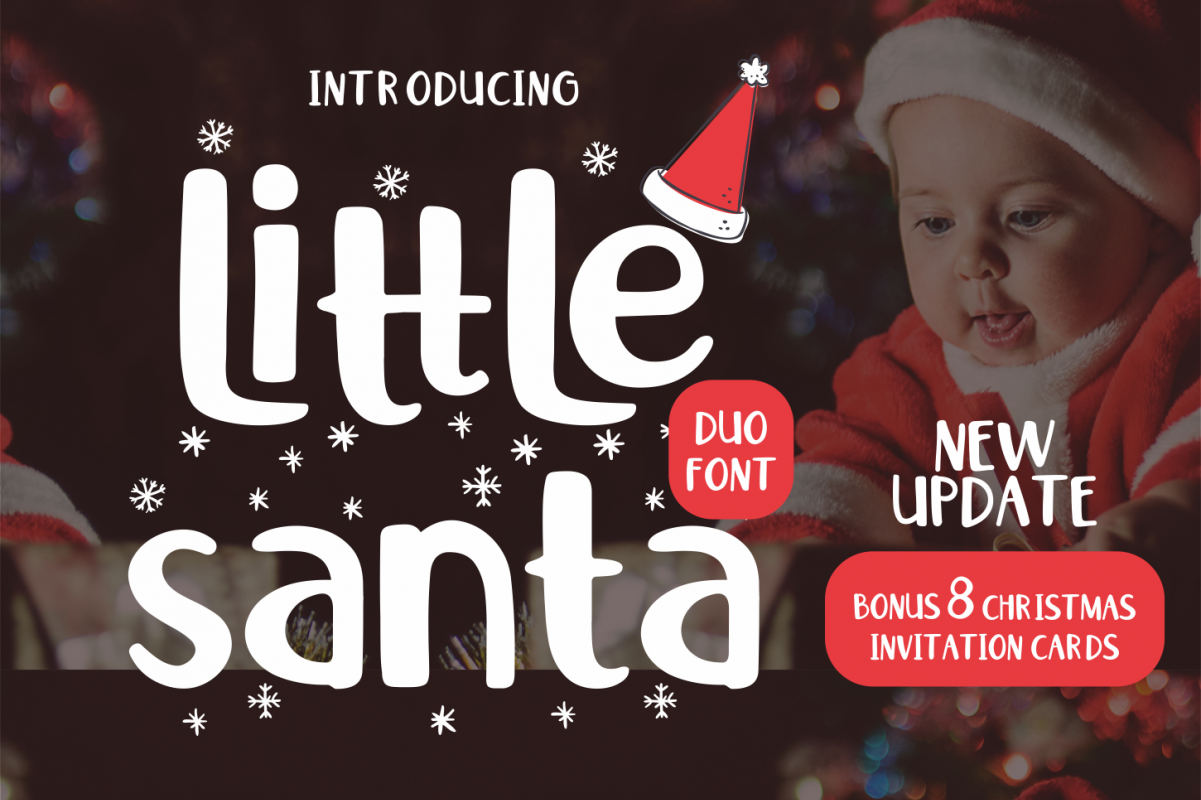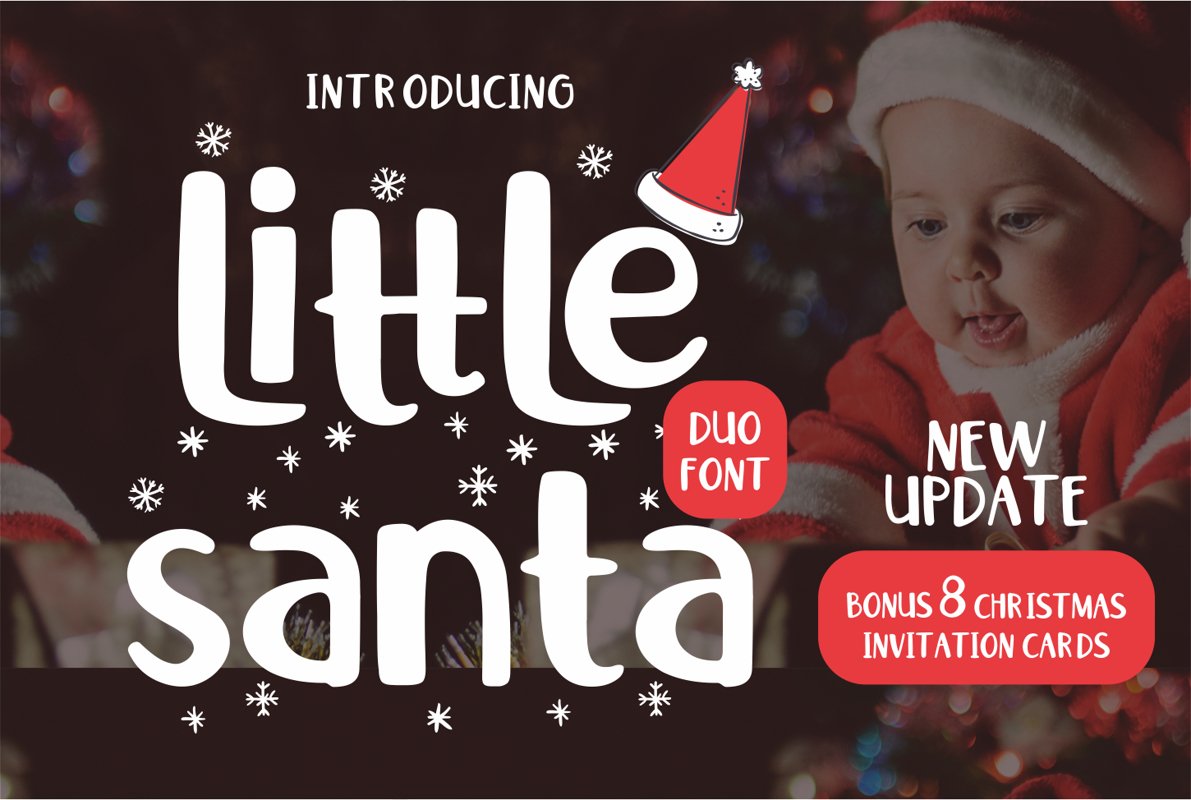
Little Santa Font | merry christmas font | 8 christmas cards
Little Santa
Little Santa Flake
It's smooth, cute and fun. it's Little Santa Font! Mixed hand type with many possible combinations. Little Santa Font is a perfect pair of fonts for all your fun designs. there are two fonts, one for simple design and one for merry christmas greeting.